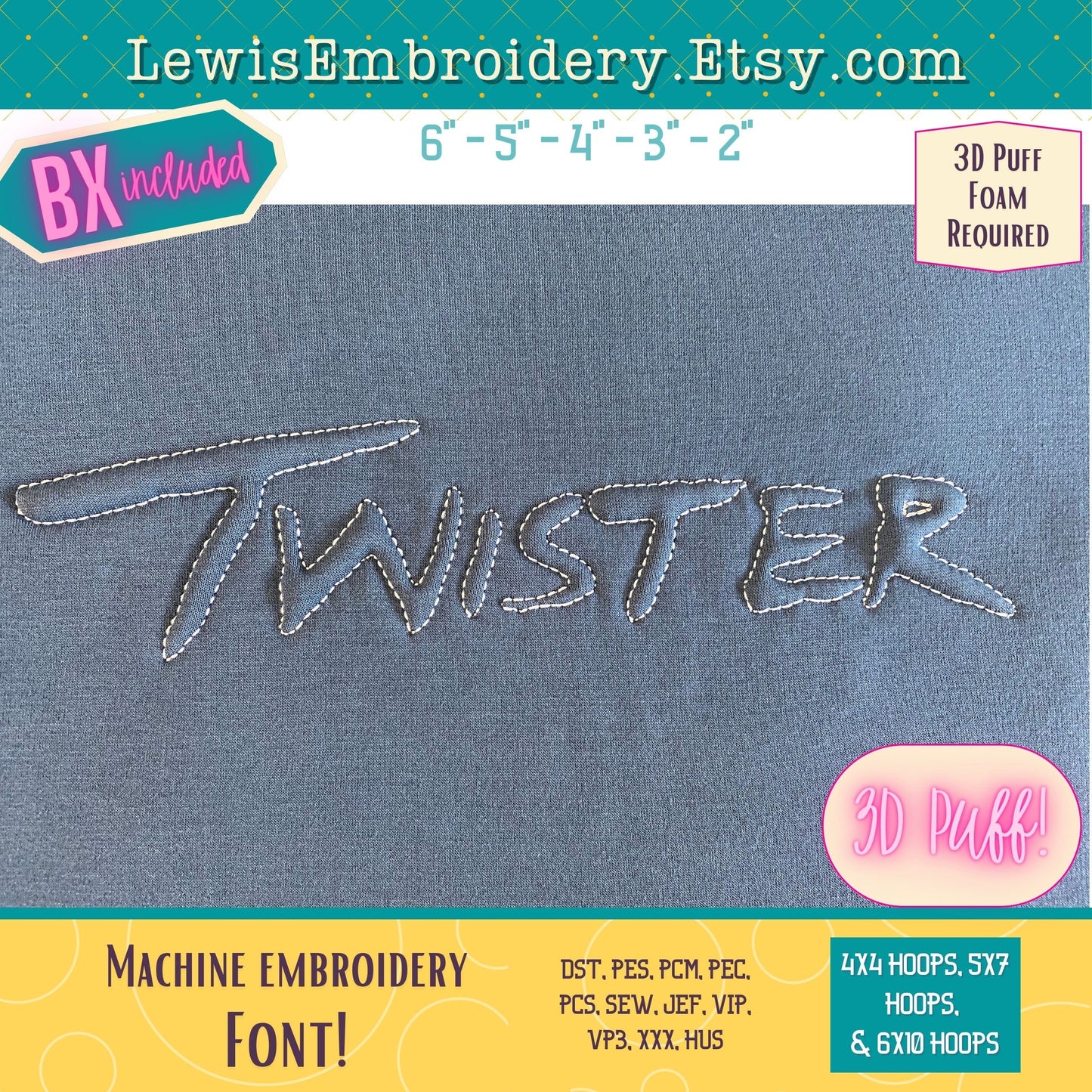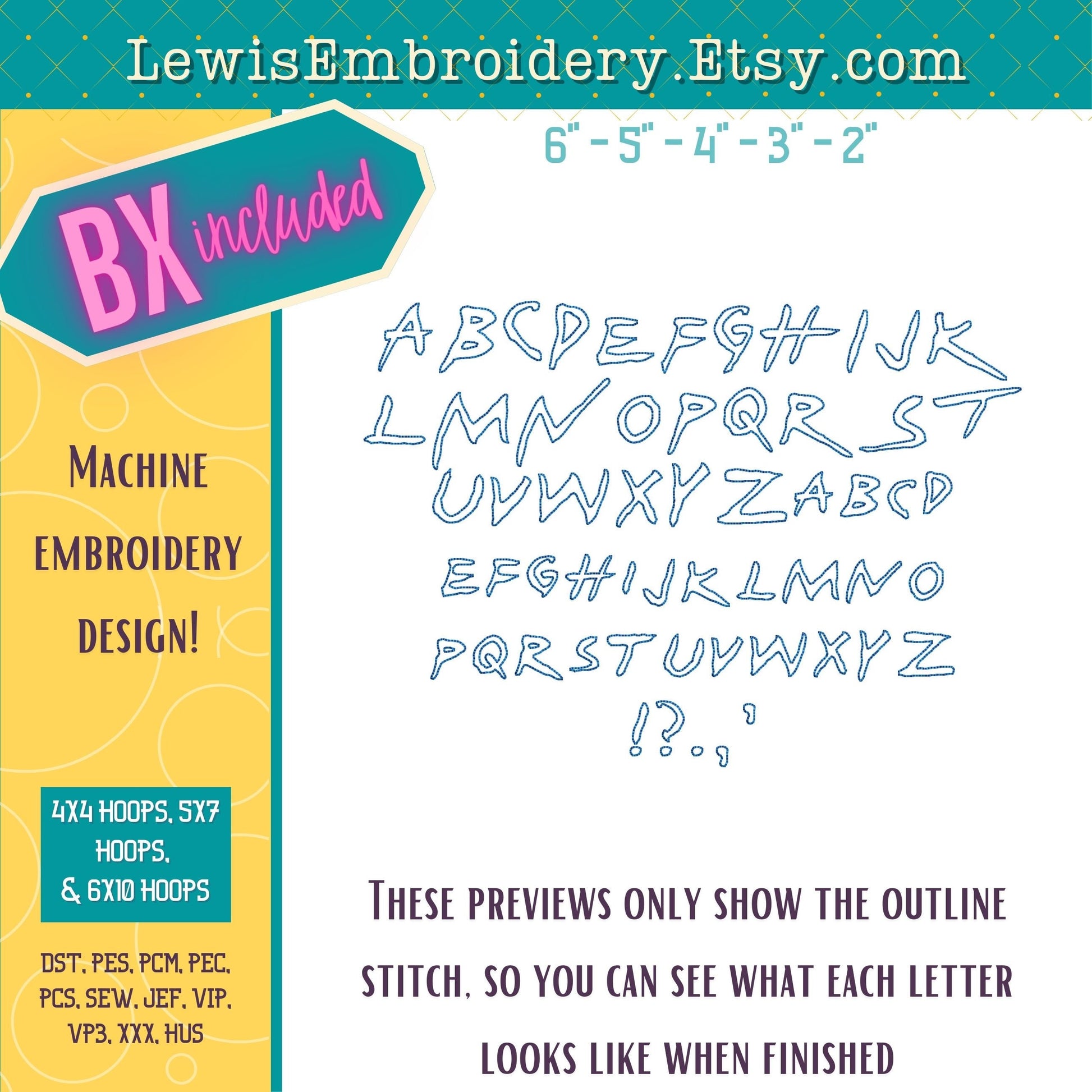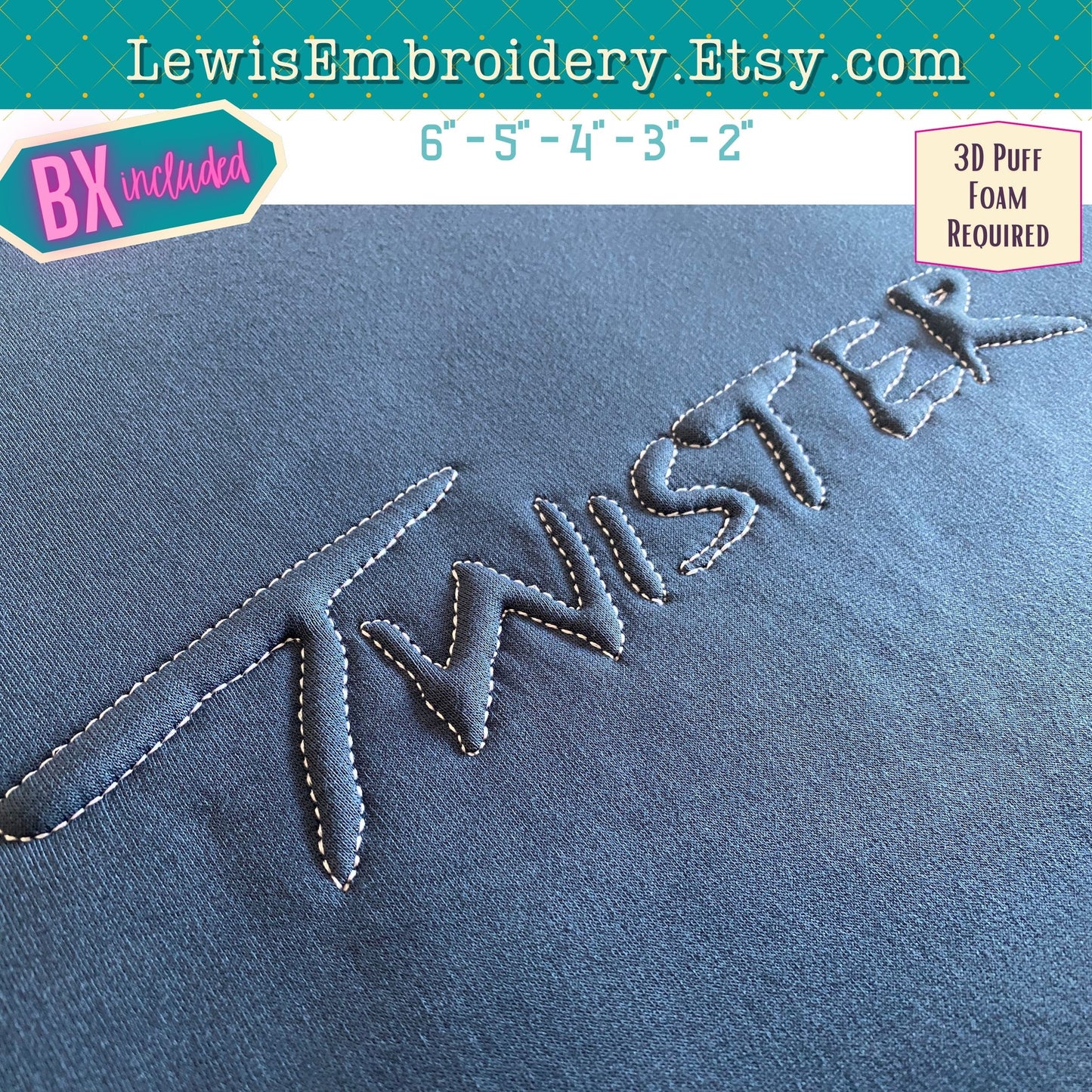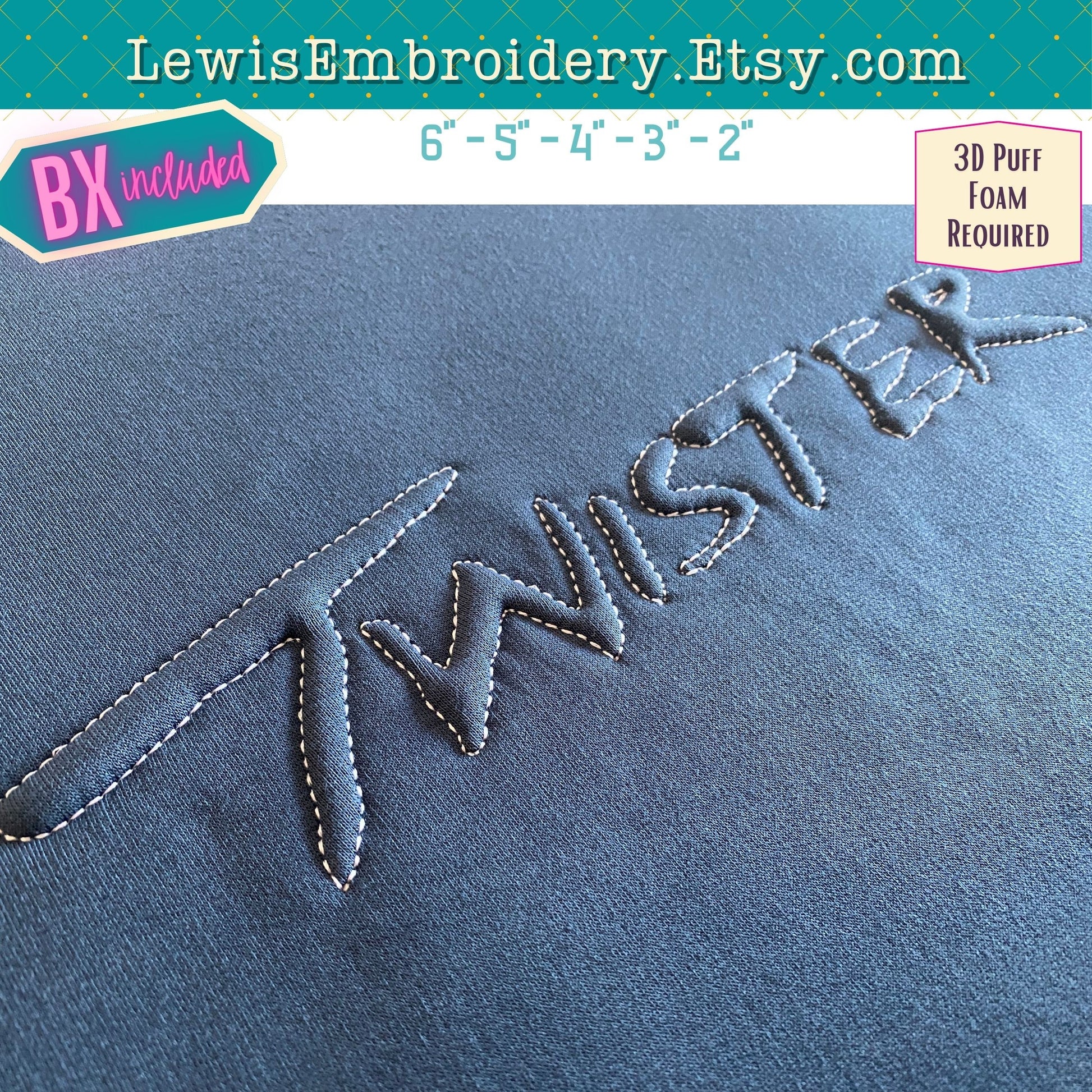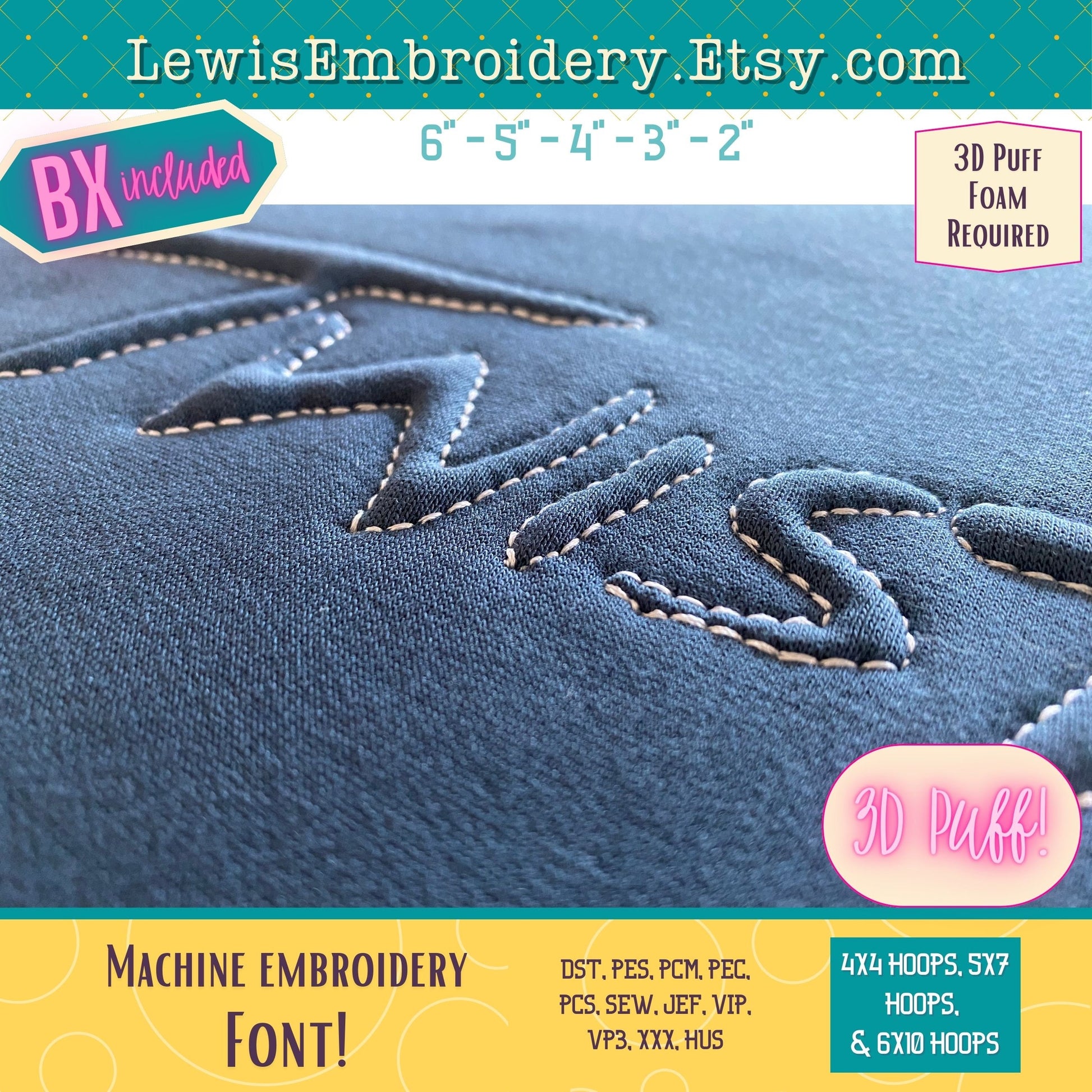
Embossed 3D Puff, Twister, Machine Embroidery Font - With BX - (PDF Tutorial Included)
Embossed 3D Puff Twister Embroidery Font - Puff Foam Tornado Alphabet - Puffy Outline Font - Rock and Roll Embroidery Font - BX Font
This font was designed to be used with a weighted stretchy fabric, such as sweatshirt material. The quality of the outcome cannot be guaranteed if you use very lightweght fabric, or fabric with no stretch.